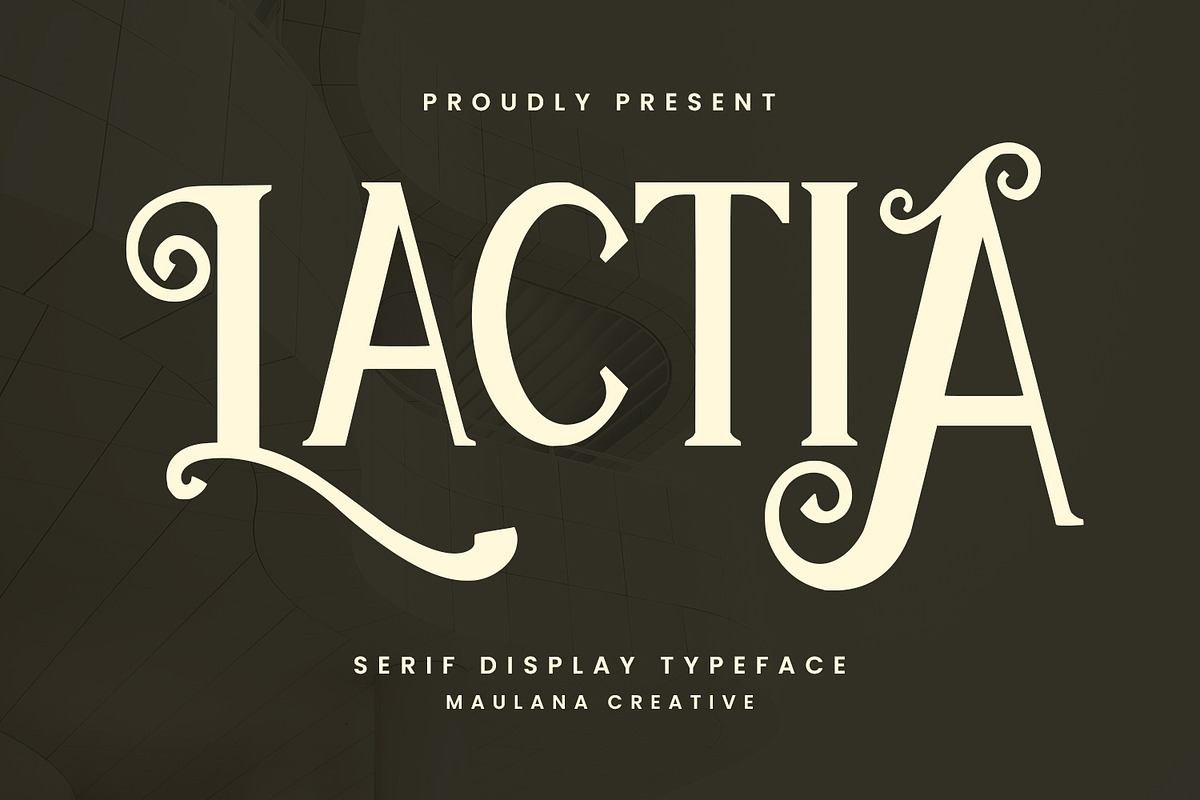
Lactia Serif Display Typeface Free Download
Lactia Serif Display Typeface Free Download is an elegant and sophisticated typeface with a distinct blend of classic serif styling and contemporary design. With its unique character shapes and refined lines, Lactia is perfect for high-end branding, editorial design, fashion magazines, posters, and luxury packaging. Its bold, high-contrast strokes give it a striking appearance that makes a memorable statement in any design.
Lactia’s versatility ensures it works well for both large headlines and smaller text while maintaining its visual appeal. Whether you’re creating a chic logo or an eye-catching book cover, this font adds style and elegance to your projects.